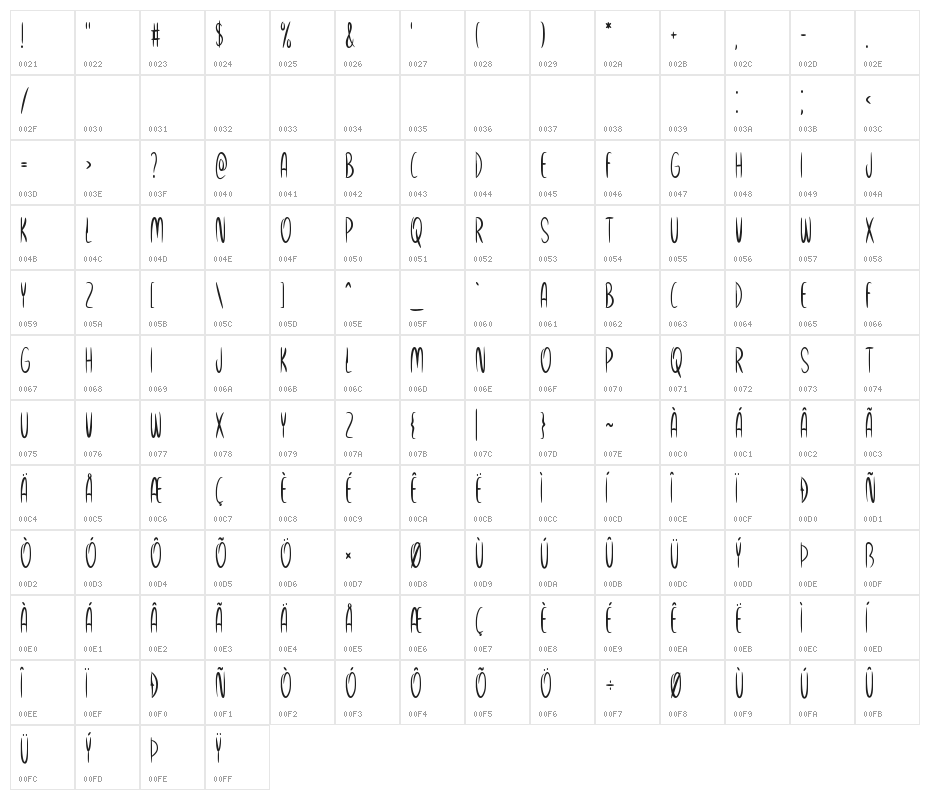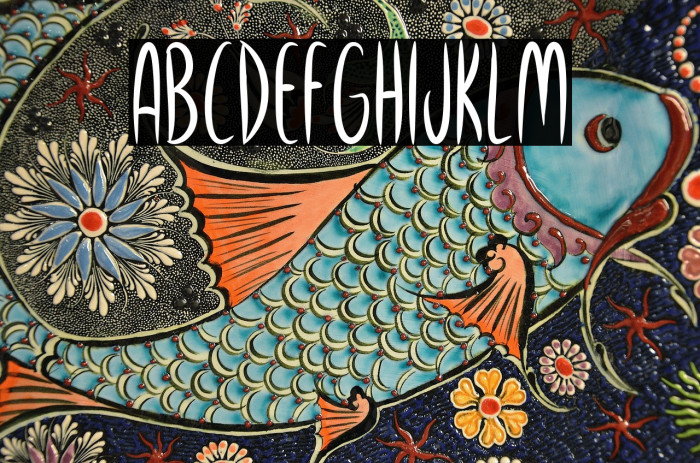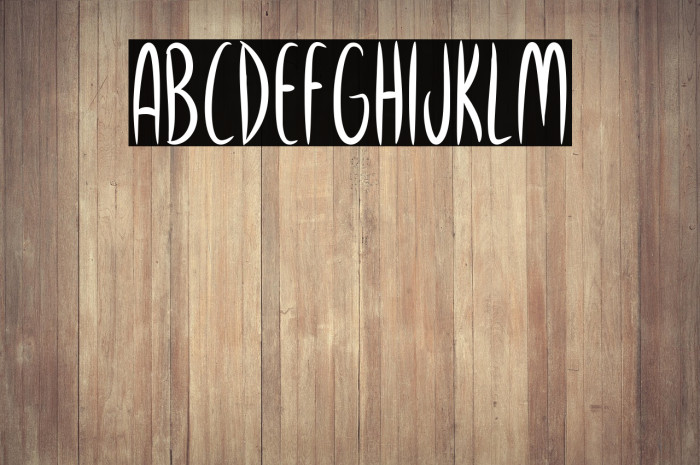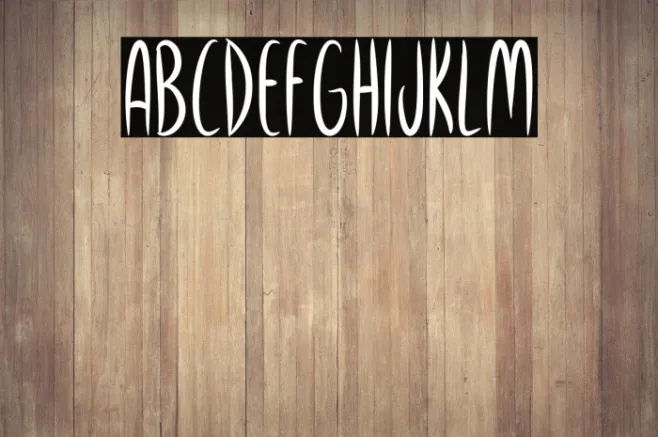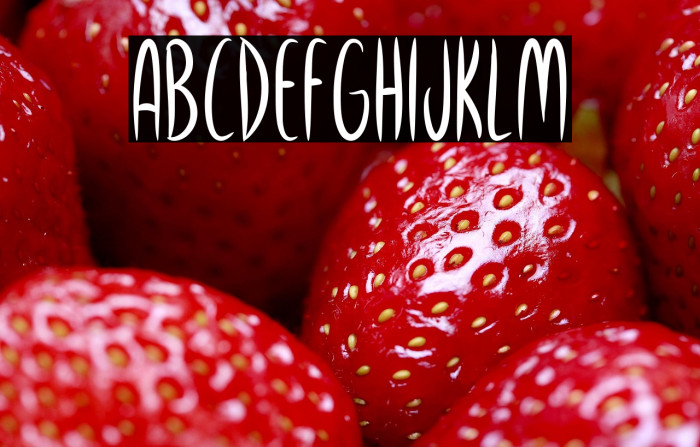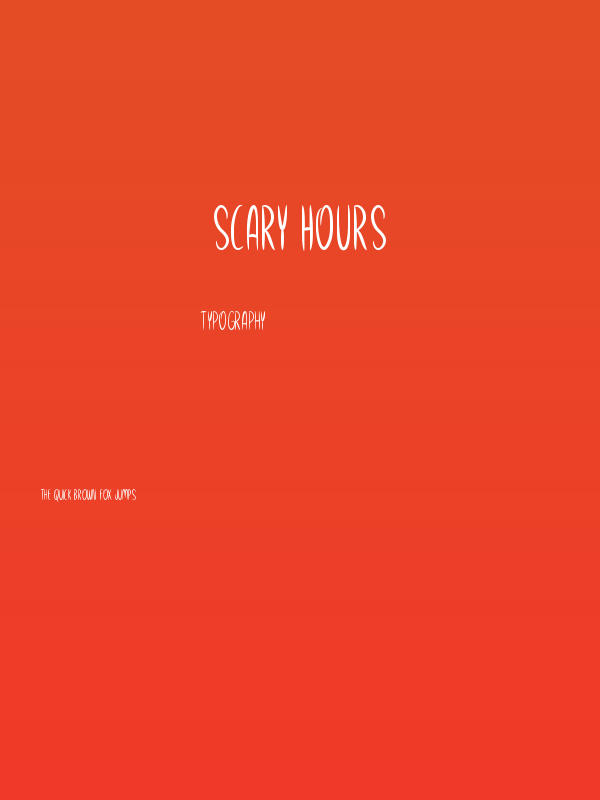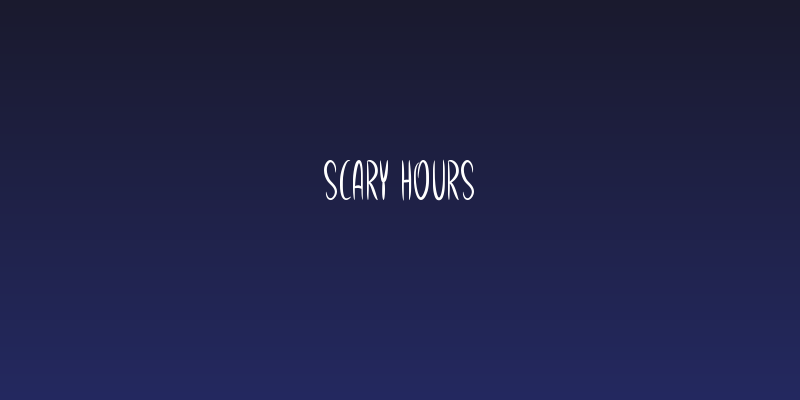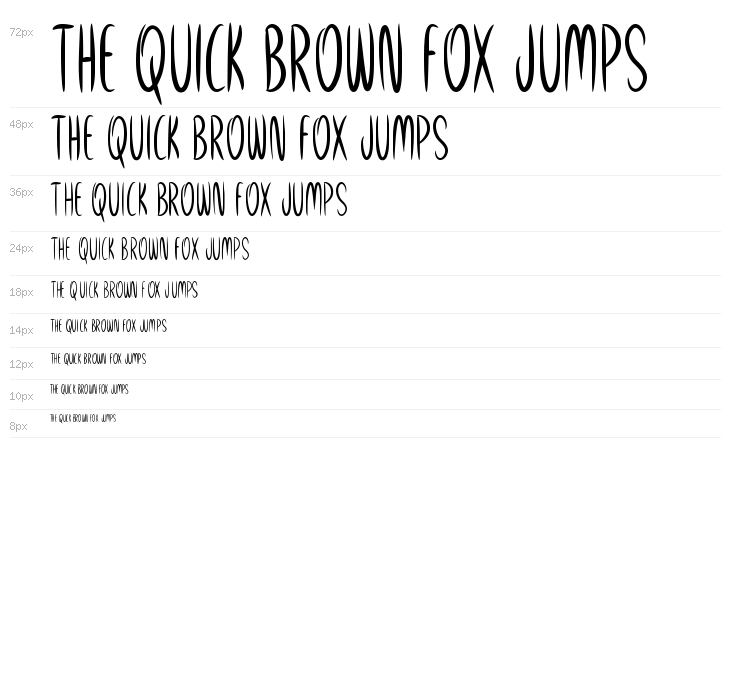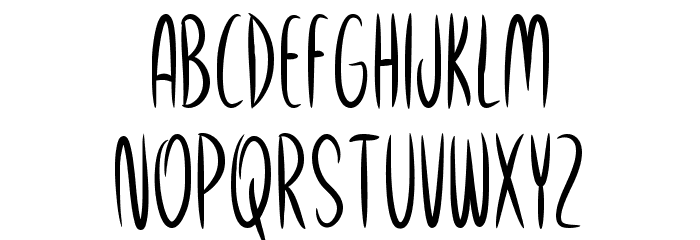
Scary Hours Font
Scary Hours Description
This font features elongated, slightly irregular strokes that give it a whimsical and slightly eerie appearance. The characters are tall and narrow, with a playful yet mysterious vibe. The uppercase and lowercase letters maintain a consistent style, with a slight slant that adds to the dynamic feel. The font's unique character is further enhanced by its distinctive special characters, which mirror the elongated and quirky style of the letters. This font is perfect for projects that require a touch of the unusual or the fantastical.
| Use Case | Headlines, Posters, Themed Invitations |
| Proposed Projects | Ideal for Halloween-themed designs, fantasy book covers, or any project needing a mysterious touch. |